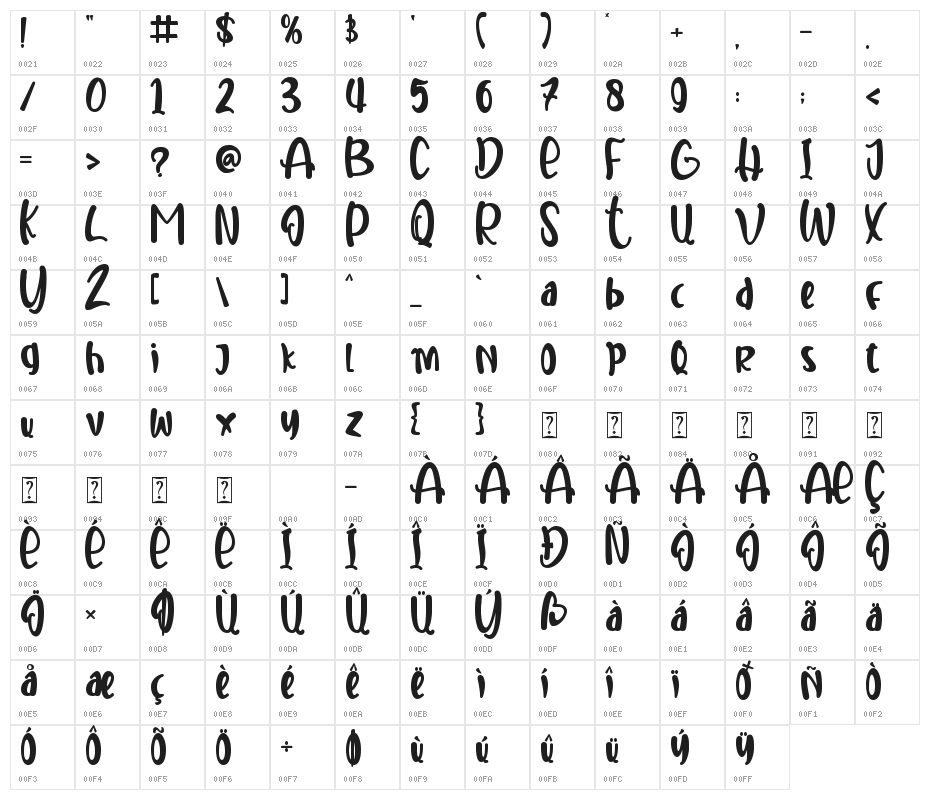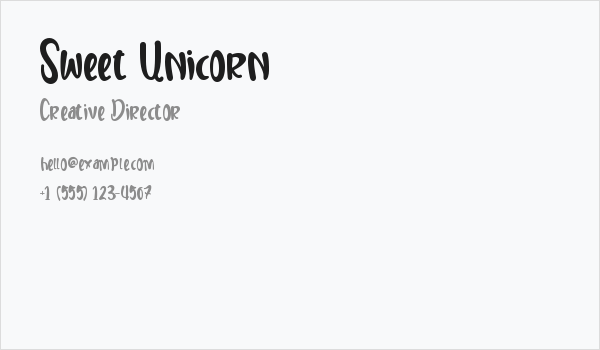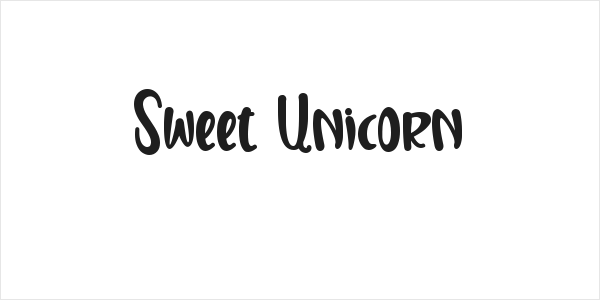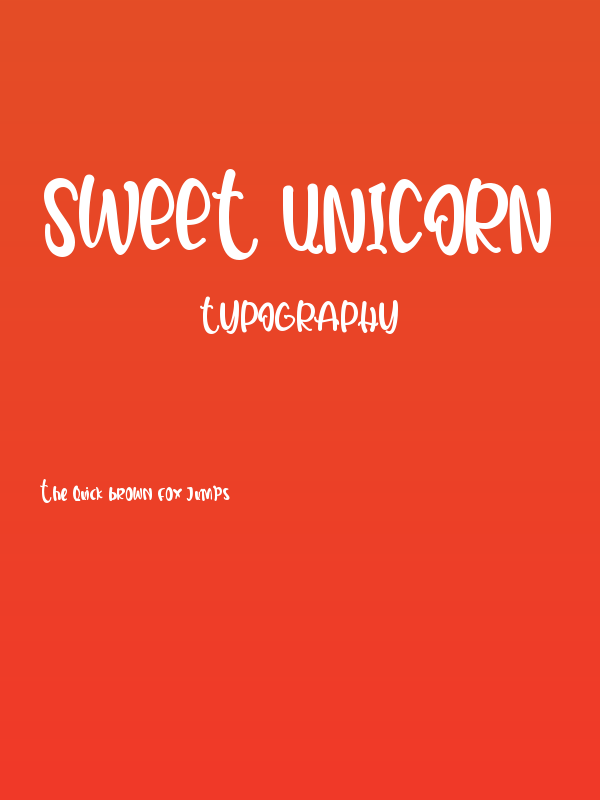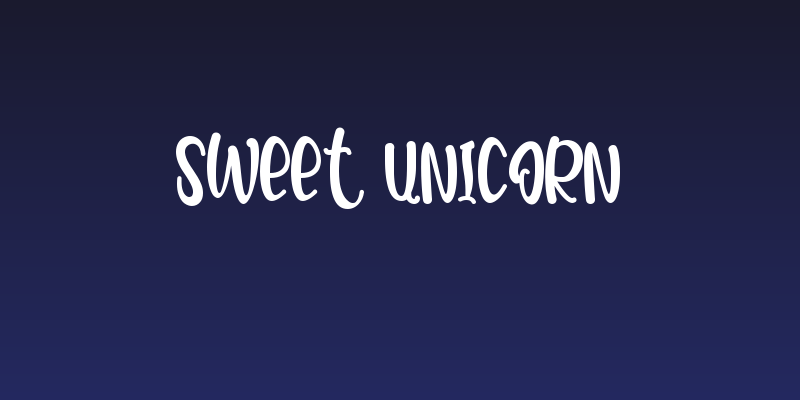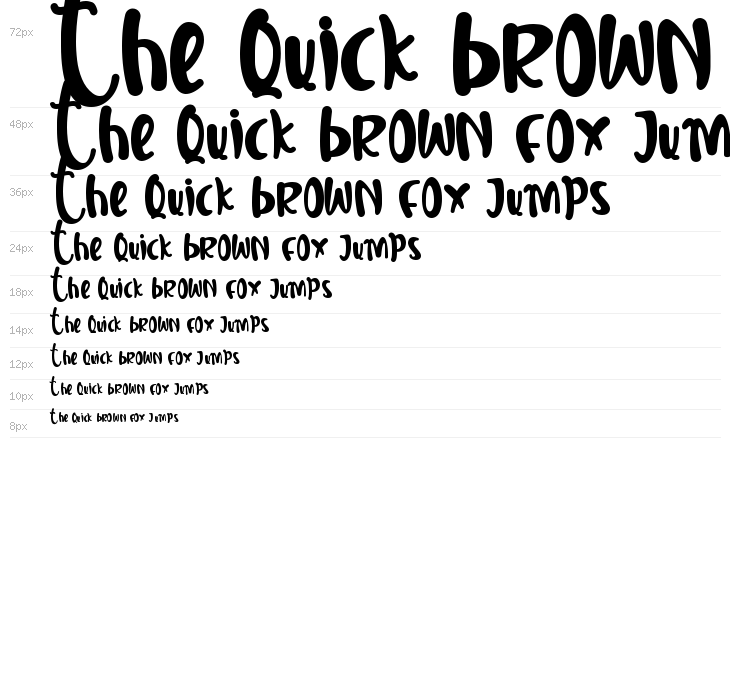
Sweet Unicorn Font
Sweet Unicorn Description
This playful and whimsical font features a handwritten style with bold, rounded strokes that give it a friendly and approachable appearance. The characters are slightly irregular, adding to the casual and informal feel. The uppercase and lowercase letters maintain a consistent style, with a noticeable bounce and flow that enhances its charm. The numerals and special characters are equally expressive, making this font versatile for various creative applications. Its thick strokes and rounded edges ensure readability while maintaining a fun and lively aesthetic.
| Proposed Projects | Ideal for children's books, greeting cards, playful branding, and social media graphics. |